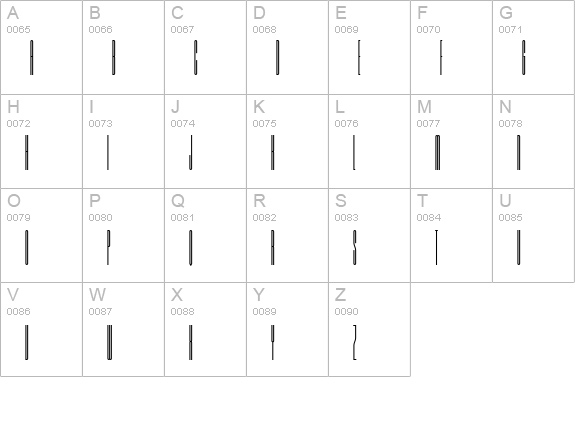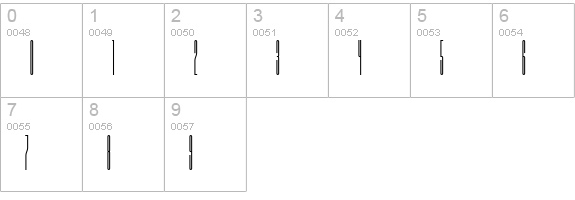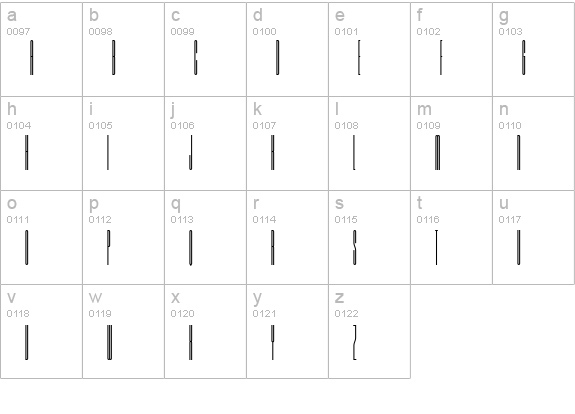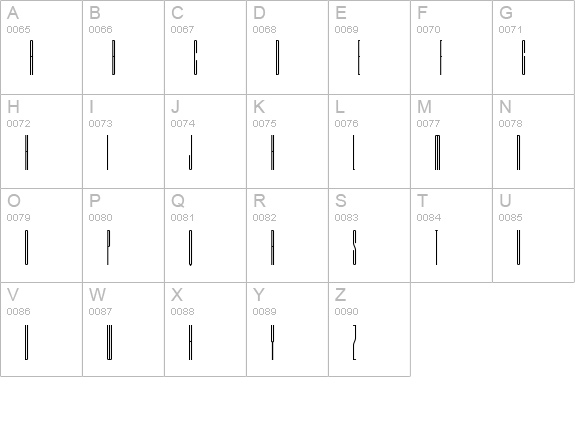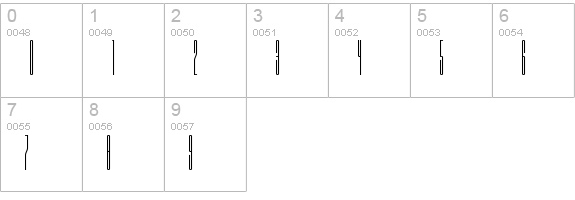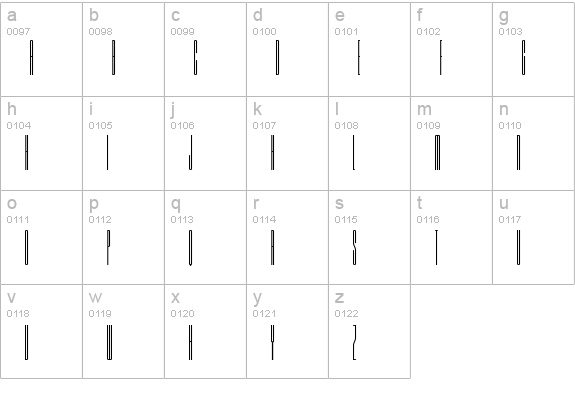
Barcode-Five font is a sleek and modern typeface designed for capturing attention and adding a touch of sophistication to your projects. With its bold and distinctive look, Barcode-Five is perfect for creating eye-catching designs, whether for posters, advertisements, or product packaging. This unique font features clean lines and sharp edges that give it a futuristic and high-tech vibe. Its tall stature and narrow width make it ideal for creating barcodes, but also versatile enough to be used in a variety of other design applications. Best of all, Barcode-Five is available for free download at FontsMarket.com, making it easy for you to add this stylish font to your collection without breaking the bank. Don't miss out on the opportunity to enhance your designs with the modern and impactful Barcode-Five font today!